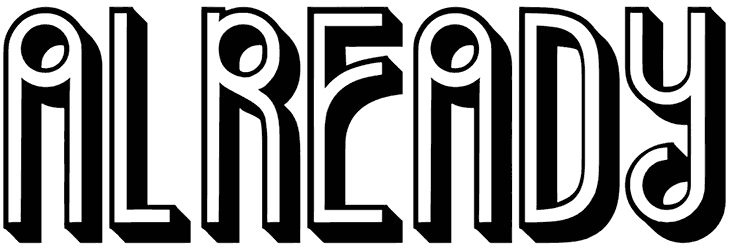
Already Font
Already is a font that can entirely change the look of your design. This retro font has 4 styles that imitate geometric texture. Since this font doesn’t support lowercase letters, you should not use it for long paragraphs. Therefore, Already can only be used for packaging, headlines, and branding. With its cartoon design and asymmetric letters, this font can create a doll and childish touch in your designs.
“Already” is based on “Mono” plate by famous Frits Jonker.
It comes in Regular and Book version with their Italics!